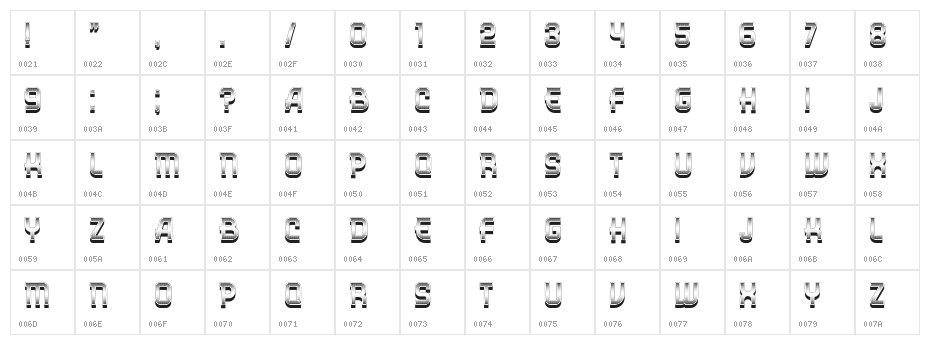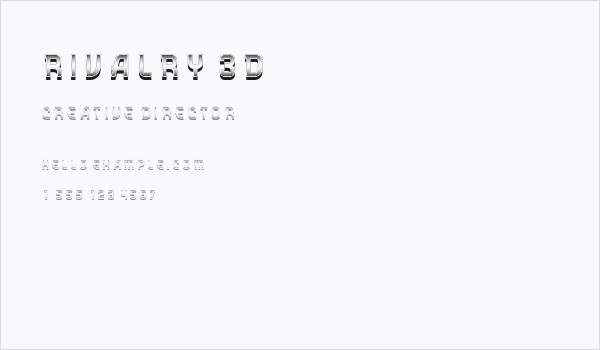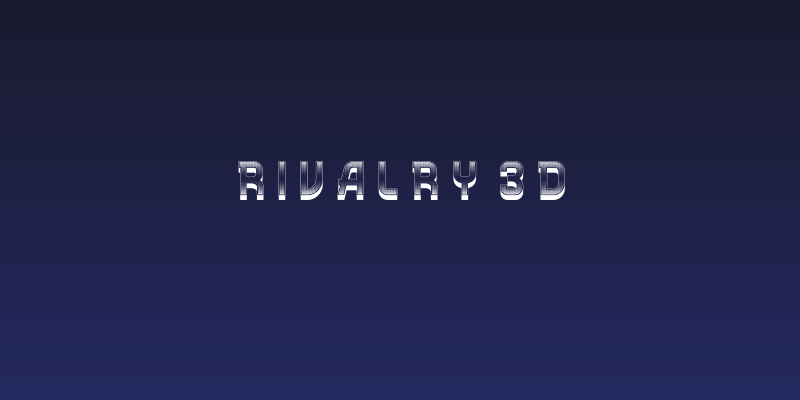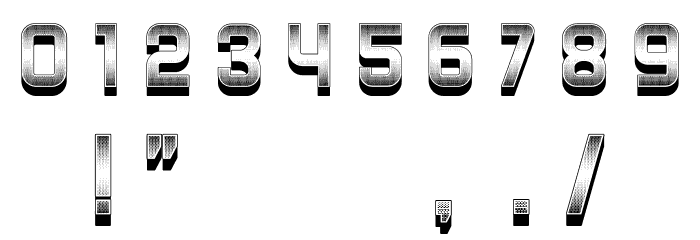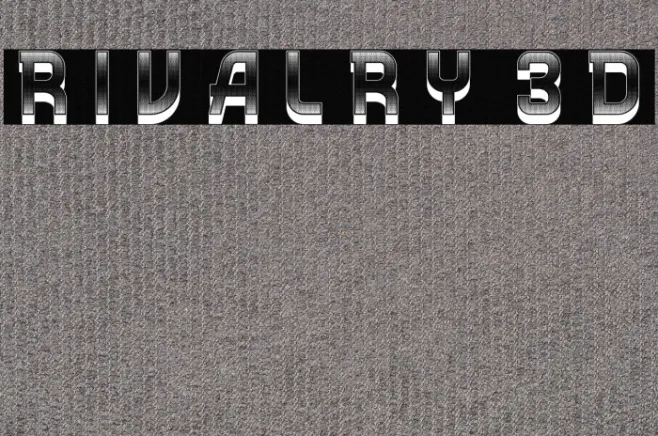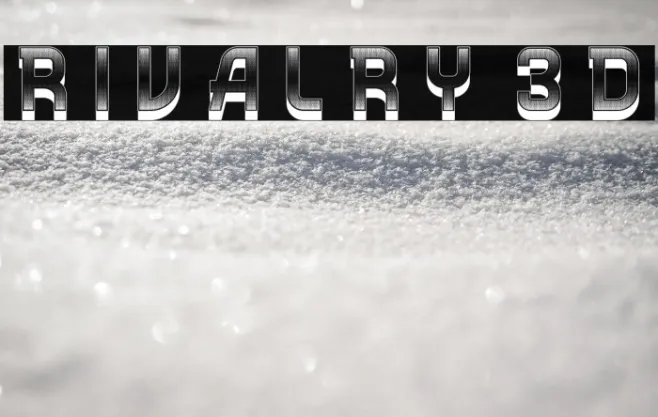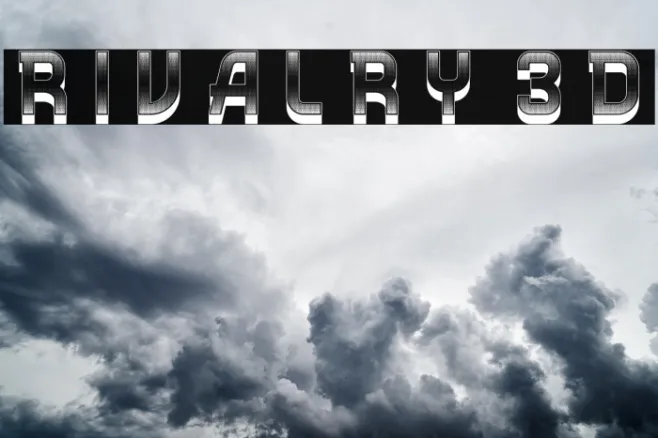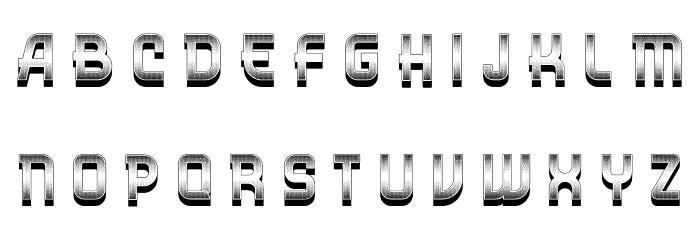
Rivalry 3D Font
Rivalry 3D Description
This font features a bold, three-dimensional design with a metallic sheen, giving it a futuristic and industrial appearance. The characters are blocky and robust, with a consistent thickness that enhances their solid and impactful look. The 3D effect is achieved through shading and highlights, creating a sense of depth and volume. This font is highly stylized, making it ideal for projects that require a strong visual presence. The uppercase letters are particularly striking, with their geometric shapes and clean lines. The numbers and special characters maintain the same bold and dynamic style, ensuring consistency across all elements.
| Overall Style | Futuristic, Industrial |
| Proposed Projects | Ideal for video game titles, movie posters, technology branding, and any project needing a strong, futuristic aesthetic. |